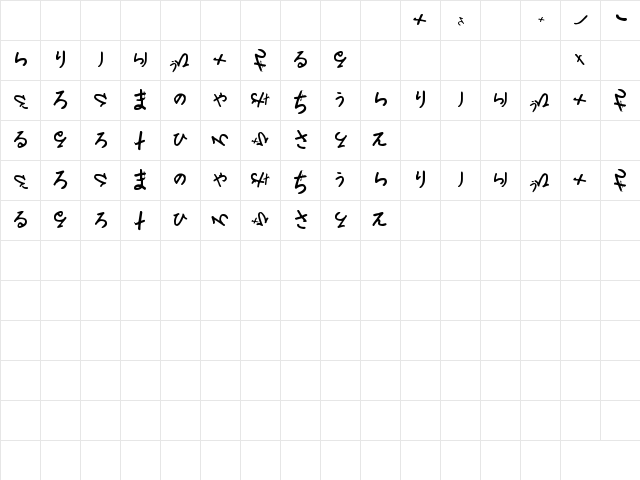
Chinese troops waiting at the b Regular Free Font
Chinese troops waiting at the b Regular
Design Context for Chinese troops waiting at the b
Chinese troops waiting at the b is a composed and adaptable typeface that performs quietly and consistently across a wide range of design contexts.
Pro Tip: Use Chinese troops waiting at the b in both headline and body roles to test its range before committing to a single application.